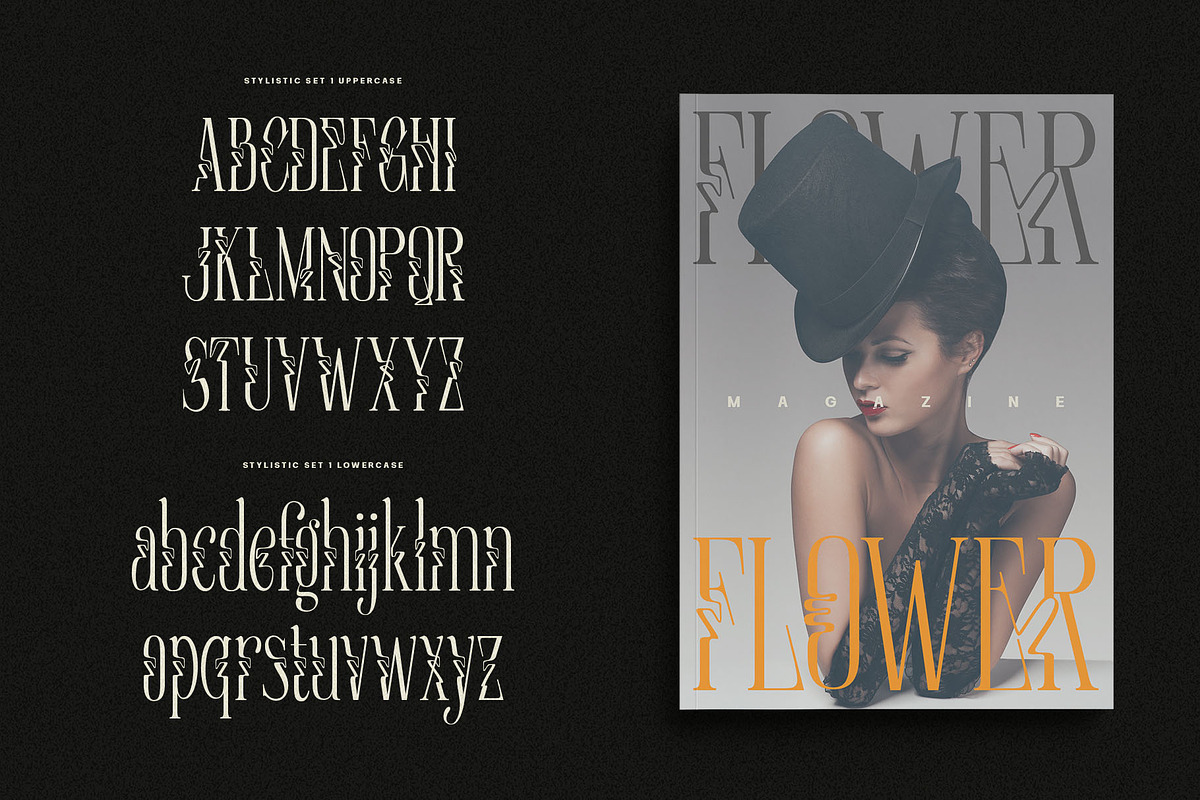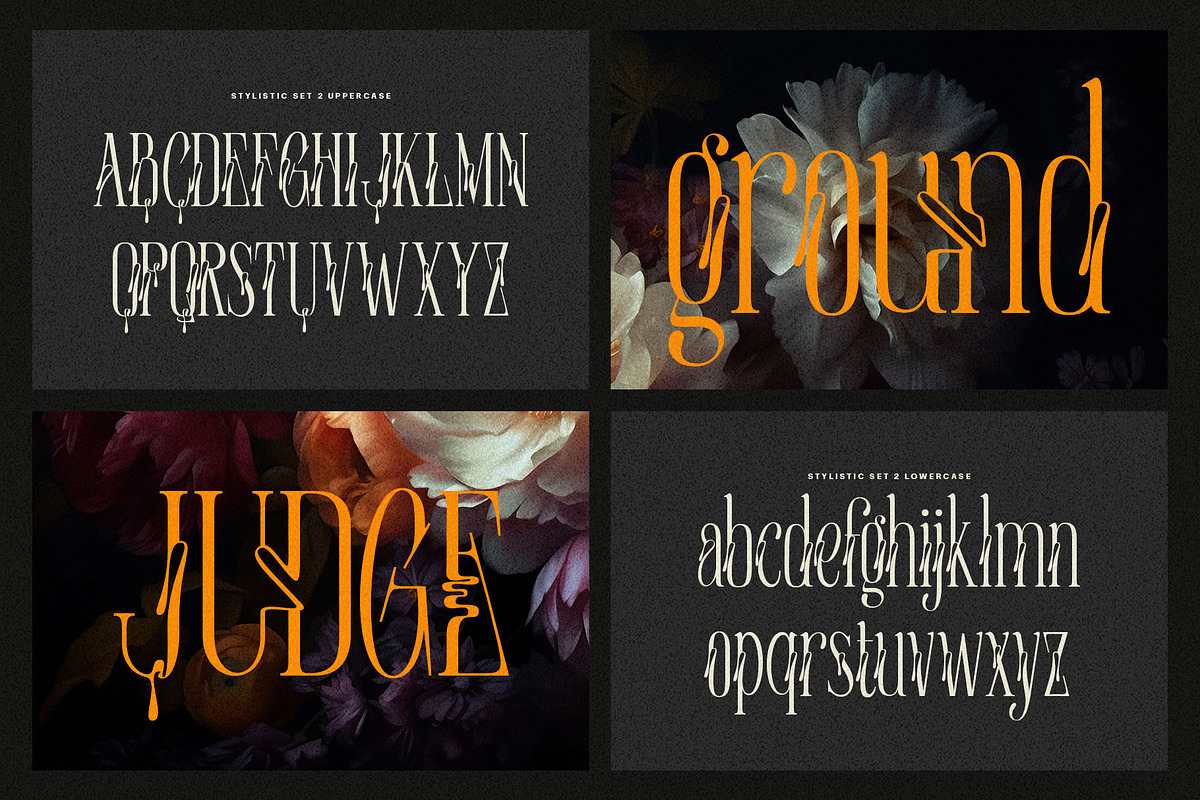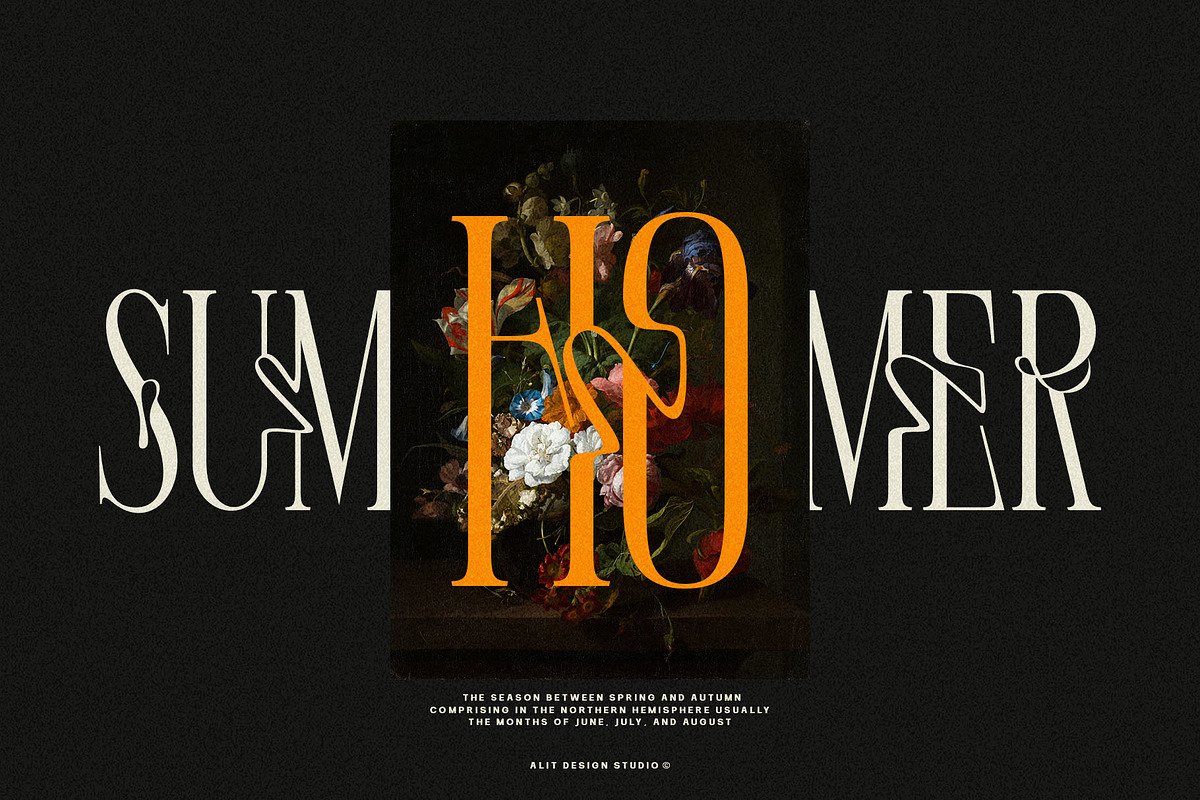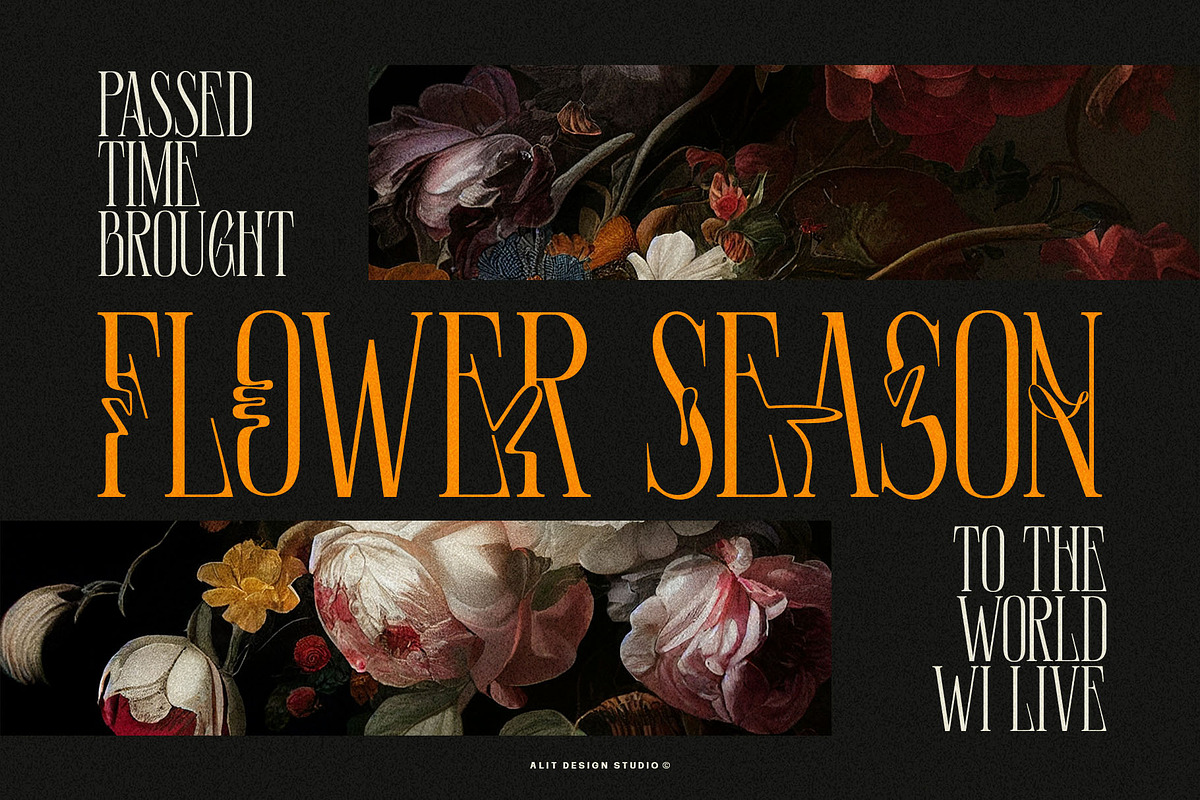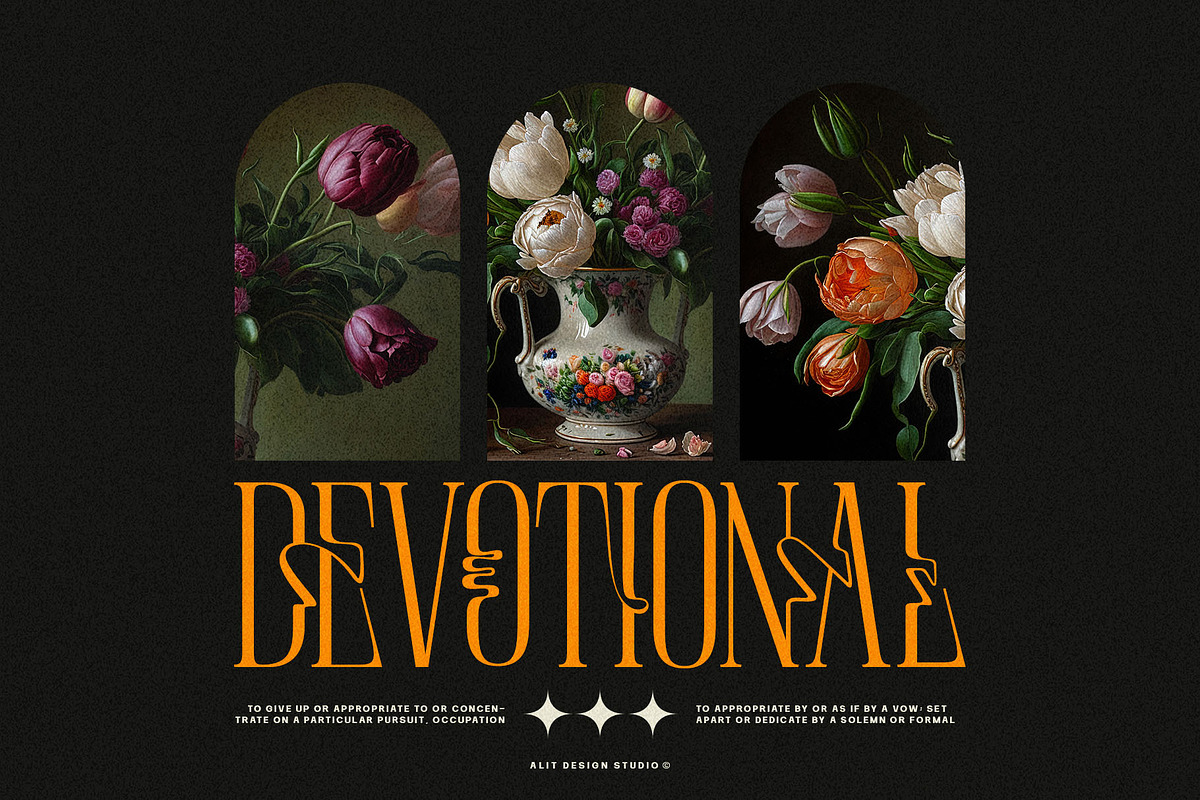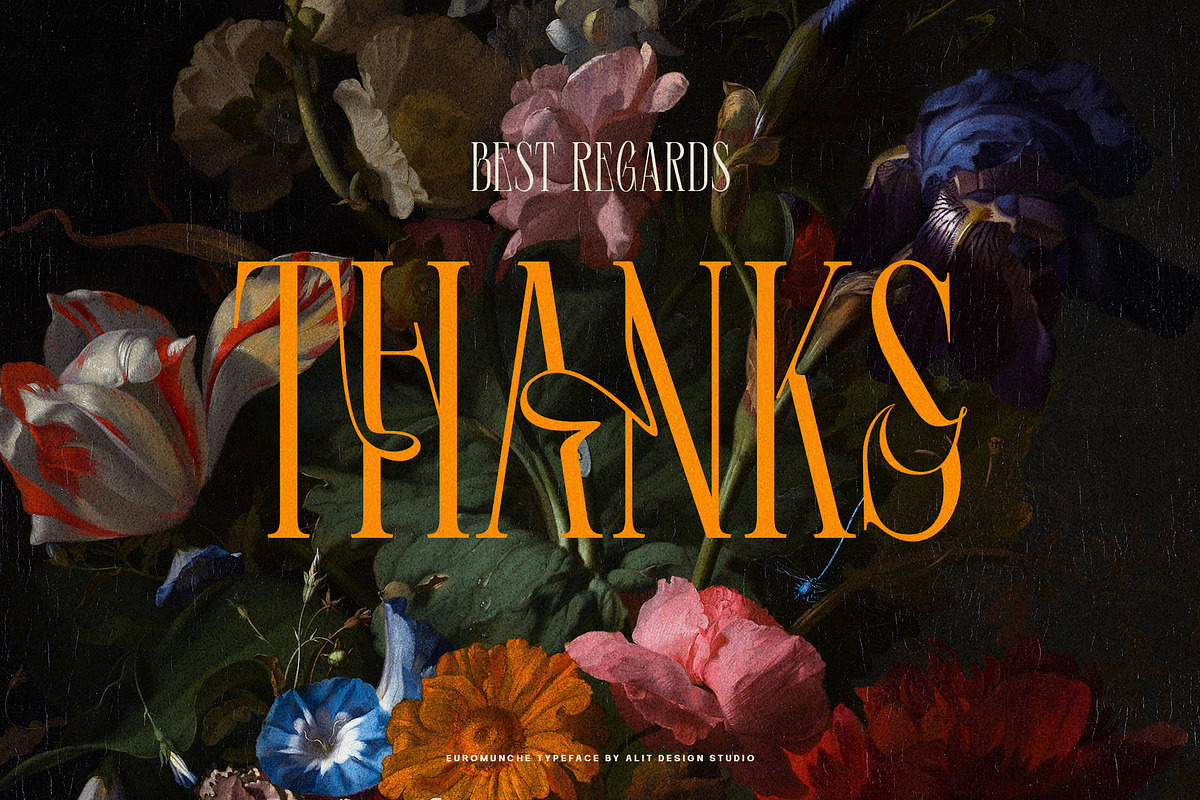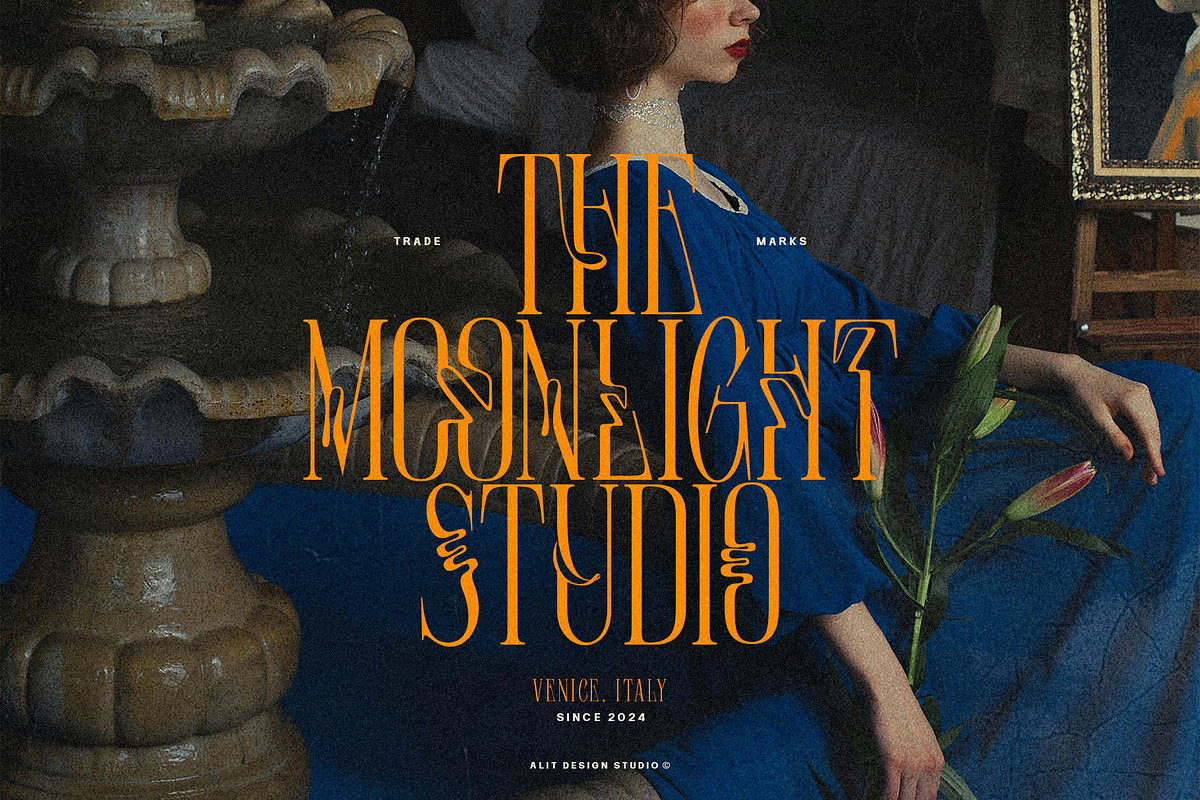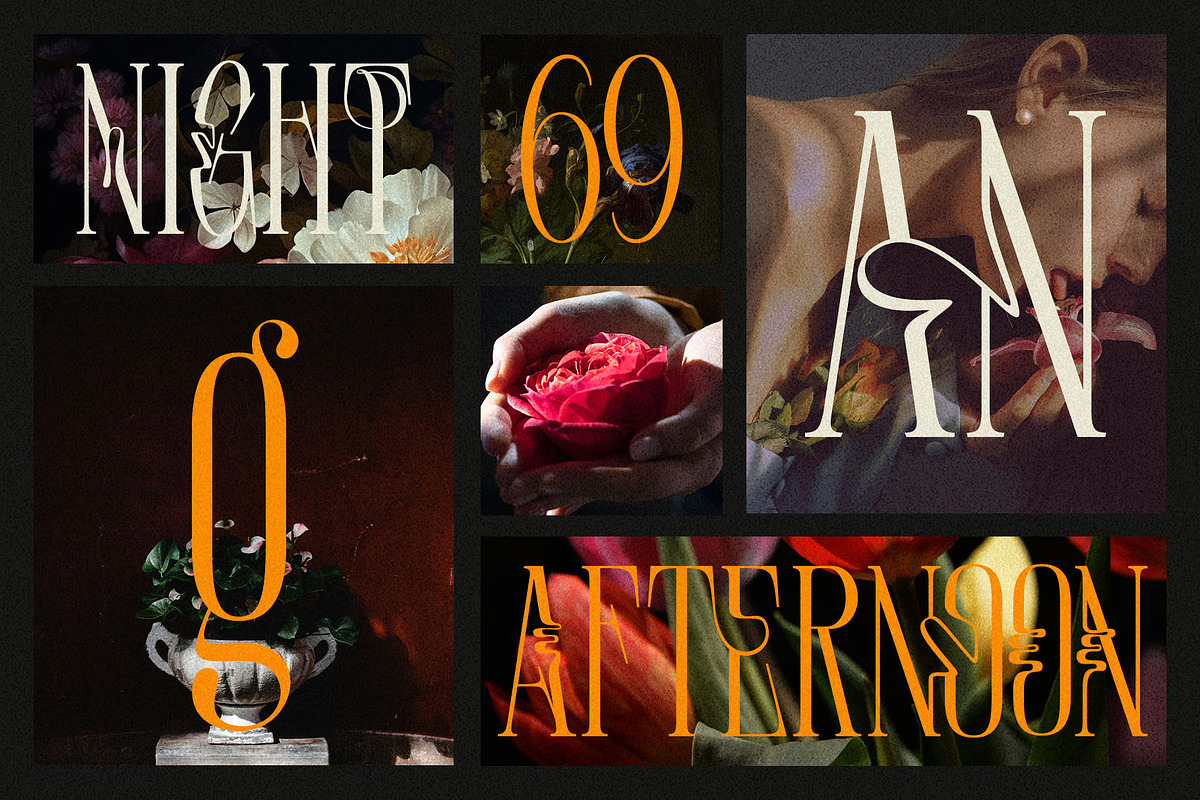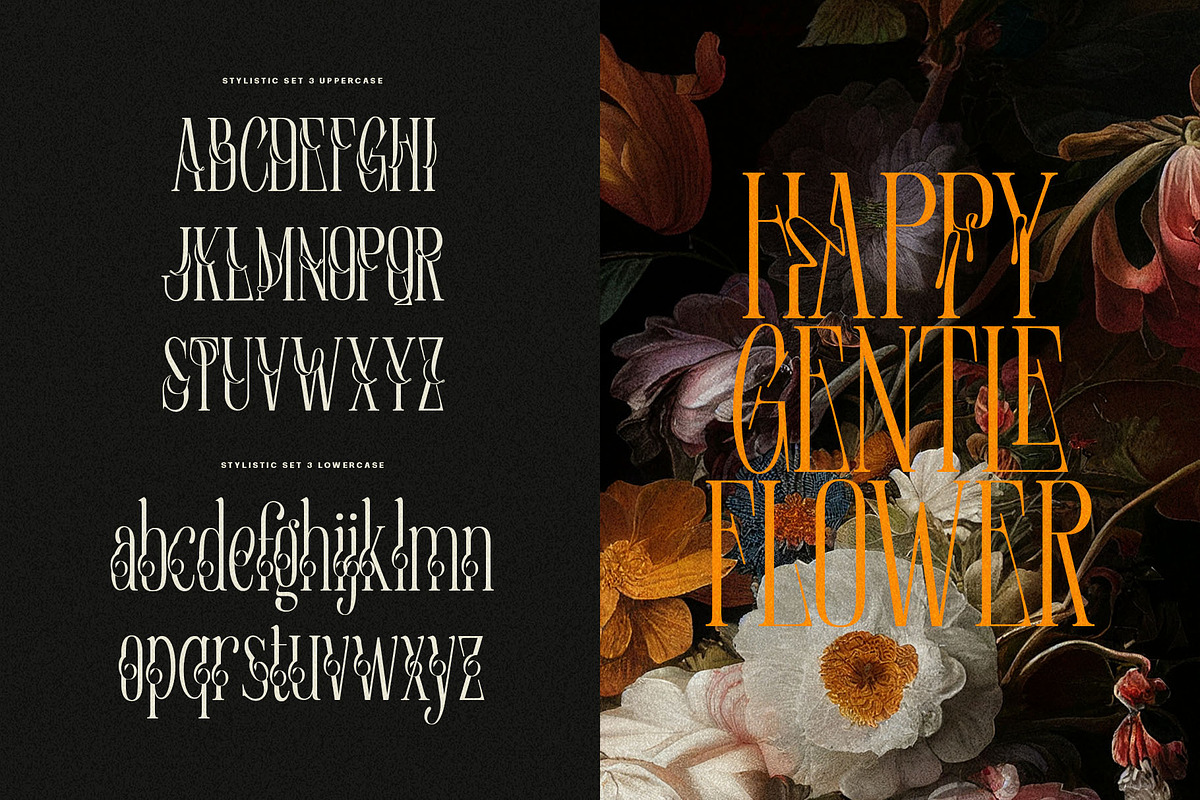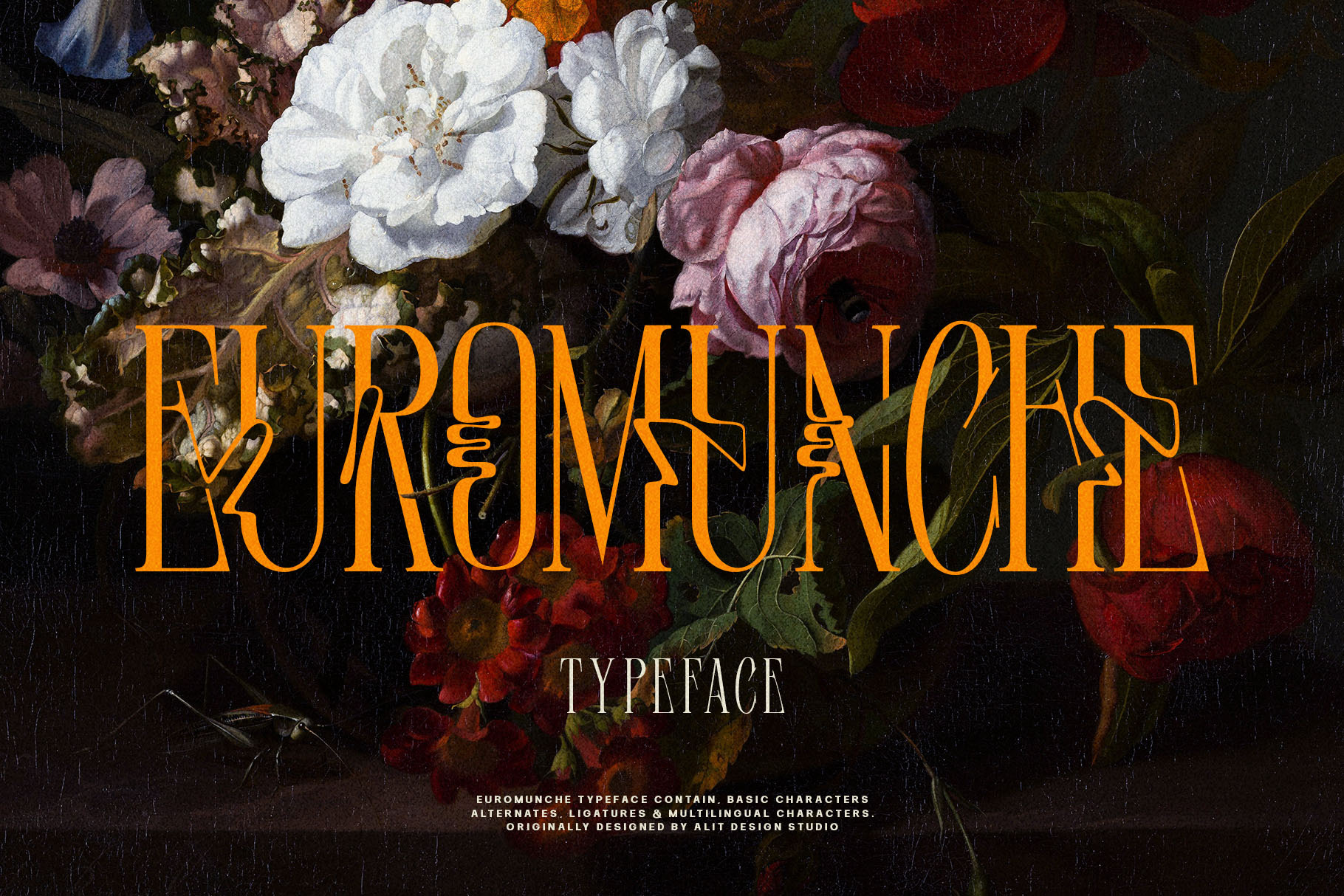
Euromunche Typeface
Euromunche Typeface is a tall serif font that embodies both modern aesthetics and a touch of whimsical charm. Its distinct swaying characters add a unique dynamism to the text, making it perfect for contemporary design projects that seek to stand out with a sophisticated yet playful touch.
Design Concept
- Height and Proportions: The typeface features elongated letterforms, giving it a tall and elegant appearance. This characteristic ensures that it captures attention and conveys a sense of grandeur and refinement.
- Serifs: The serifs are sharp and slightly curved, enhancing readability while adding a touch of classic typography elegance. They are designed to be prominent yet harmonious with the overall tall structure of the letters.
- Swaying Characters: Each character exhibits a subtle swaying motion, creating a flowing and dynamic effect. This sway is meticulously balanced to ensure it adds to the aesthetic appeal without compromising legibility.
- Modern Aesthetics: The combination of tall, sleek lines and swaying serifs results in a modern look that feels fresh and innovative. It’s perfect for cutting-edge designs while maintaining a timeless quality.
Usage
Euromunche Typeface is ideal for a variety of applications, including:
- Editorial Design: Perfect for magazine headlines, article titles, and stylish editorials where a distinctive and elegant font is needed.
- Branding: Suitable for logos, brand names, and corporate identities that require a unique and modern typeface.
- Web Design: Enhances the visual appeal of websites, especially for headers and hero sections where bold and aesthetic typography is crucial.
- Advertising: Ideal for posters, billboards, and digital ads, ensuring the message stands out with a touch of sophistication and creativity.
- Uppercase and Lowercase Letters: Both sets exhibit the signature tall, swaying style, ensuring consistency and versatility in usage.
- Numerals and Punctuation: Designed to match the overall aesthetic, with the same elegant and modern characteristics.
- Multilingual Support: Includes a wide range of characters to support various languages, making it versatile for global use.
- Ligatures and Alternates: Offers additional typographic flexibility with stylish ligatures and alternate characters for added creativity.
Conclusion
Euromunche Typeface is a unique blend of tall serif elegance and modern design innovation. Its distinctive swaying characters set it apart, making it a versatile choice for designers seeking to add a sophisticated and contemporary touch to their projects. Whether used in print or digital media, Euromunche Typeface promises to deliver a striking visual impact.